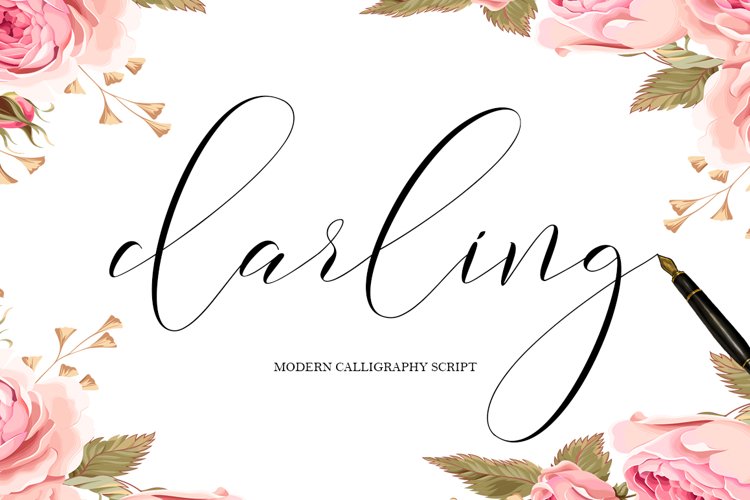
Darling Script
Darling is a magical handwritten font carefully created with a touch of elegance. This is a beautiful combination of timeless elegance and authentic calligraphy. It features an incredibly classic style, while still keeping a friendly feel. Darling is the perfect font for making original and outstanding designs. Darling is suitable for various products such as invitations, product packaging, quotes, product design, crafter, labels, photography, watermarks, logos & branding.Everything can be accessed using software that supports Opentype, such as Adobe Indesign, Adobe CS Illustrator, Adobe Photoshop CC, and Corel Draw.